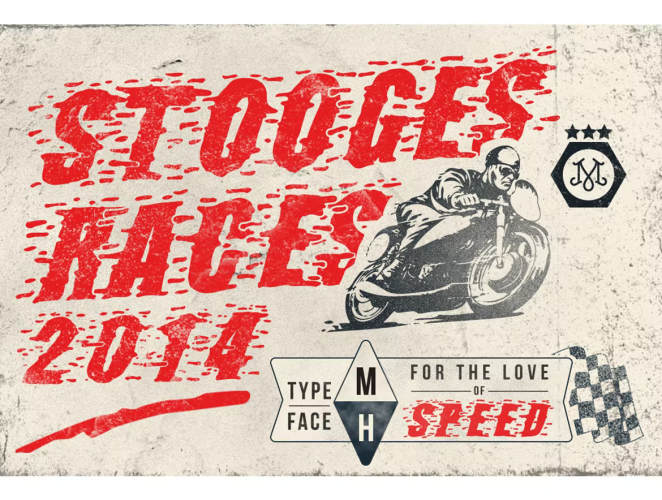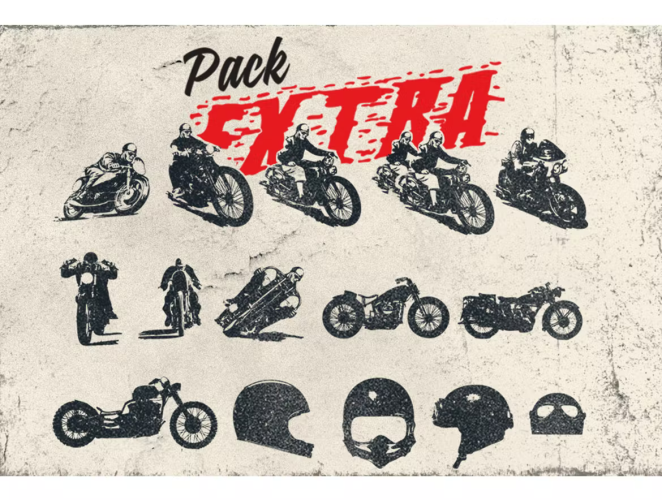
Stooges Races Font
Introducing the new stooges races with a hand drawn style. races stooges typeface inspired by poster of motorcycle era 1900. it can be used in logos, games and graphics…
Introducing the new stooges races with a hand drawn style. races stooges typeface inspired by poster of motorcycle era 1900. it can be used in logos, games and graphics related to cars, automotive, Detroit, 1940, 1950, 1960, vintage, retro, classic and old machines.
Where Stooges Races Font works best
Seasonal campaigns
Stooges Races Font gives a holiday or themed promotion its own look without redrawing anything; use it for the headline only.
Party and family invitations
Decorative letters set the mood before the text is read. Pair Stooges Races Font with a plain sans for the practical details.
Game and video titles
Themed lettering sells the world of a game or a channel in one frame.
What kind of work does Stooges Races Font suit?
It sits in the Decorative Fonts group and reads as branding, classic, decorative, decorative fonts. That makes it a candidate wherever those qualities help: headings, packaging, social graphics and brand work. Set it at the size you plan to use before deciding.